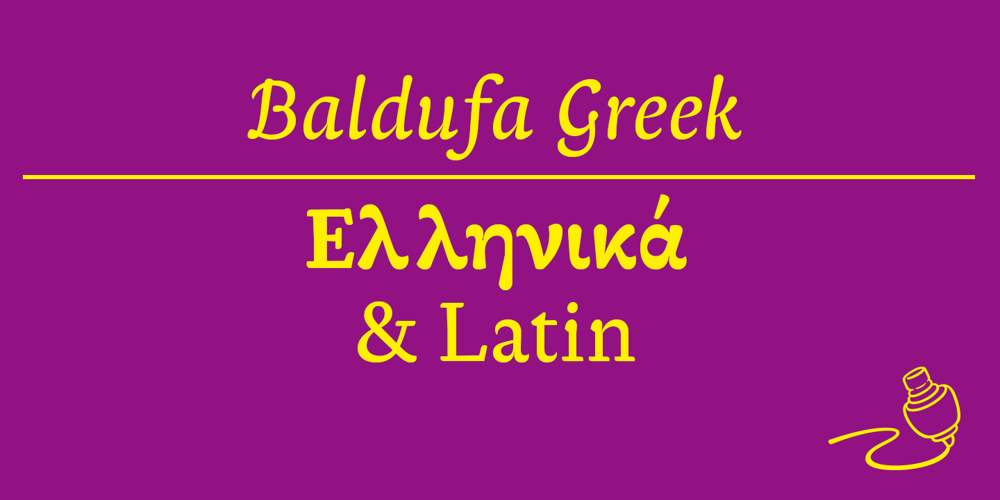
Baldufa Greek Ltn Font Family was designed by Pilar Cano, Ferran Milan and published by Letterjuice. Baldufa Greek Ltn contains 3 styles and family package options. Baldufa is a charming typeface with strong personality, which looks very comfortable in text. There is a search to obtain complicated curves and detailed features, which gives the typeface a touch of beauty and elegance. However, this is also a self-conscious design that claims through the rounded serifs and irregular vertical stems appreciation for quirkiness and human imperfection. The letterforms in the Latin are inspired by the slight distortions and idiosyncrasies that came with old printing methods. It has distinct, features such as rounded serifs, irregular vertical streams, ink traps and extremely thin junctions. In the Italic, serifs have been removed to enhance movement and expressivity. These experiments in form have not come at the cost of legibility: The typeface remains suitable for both small and display text.Baldufa Greek Ltn covers Greek and Latin.